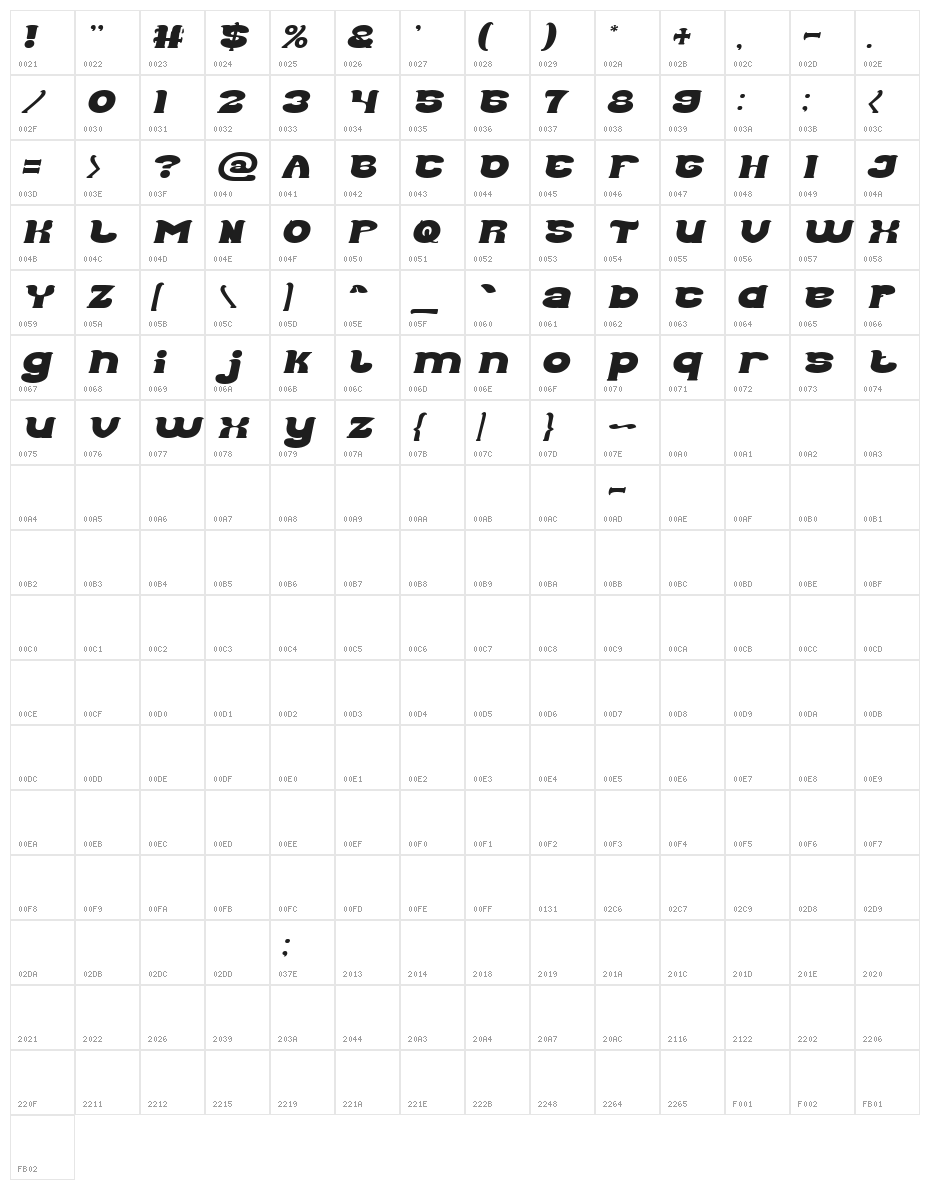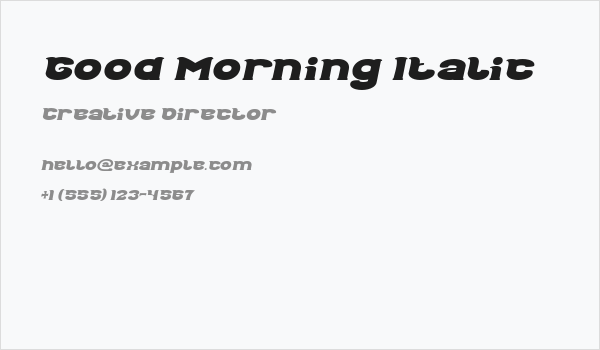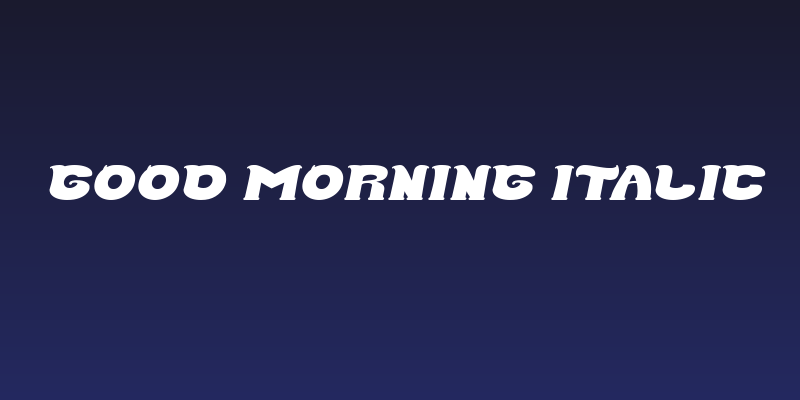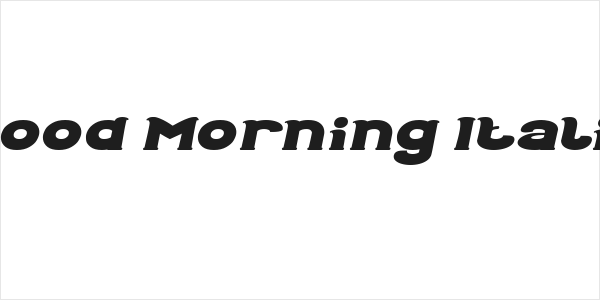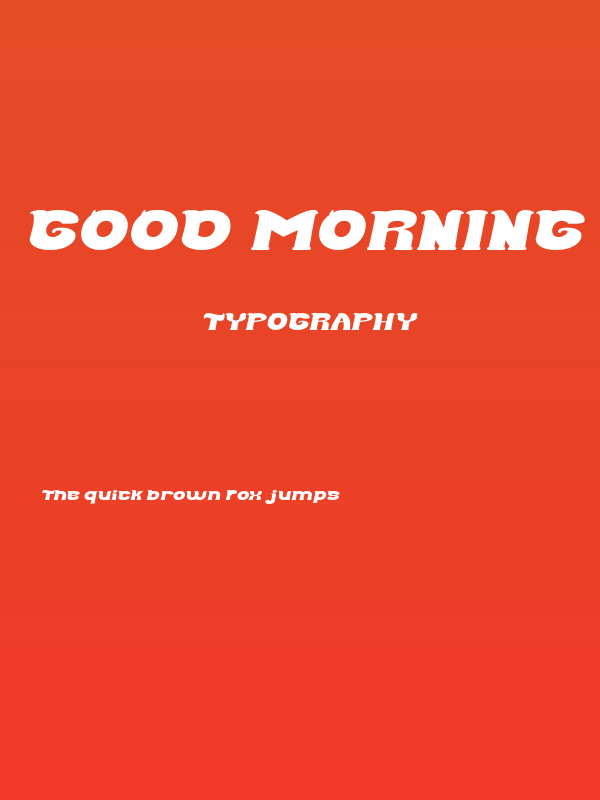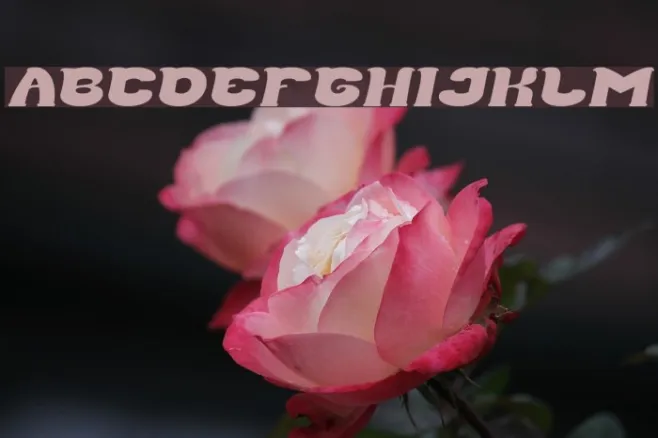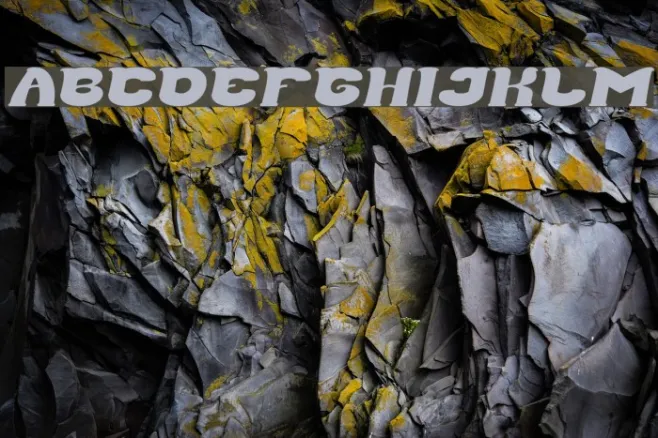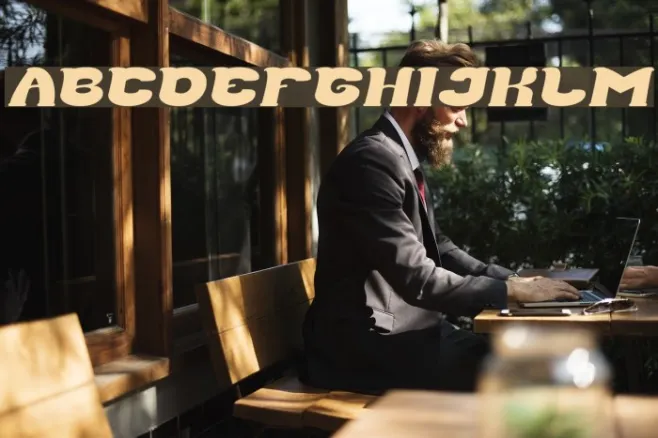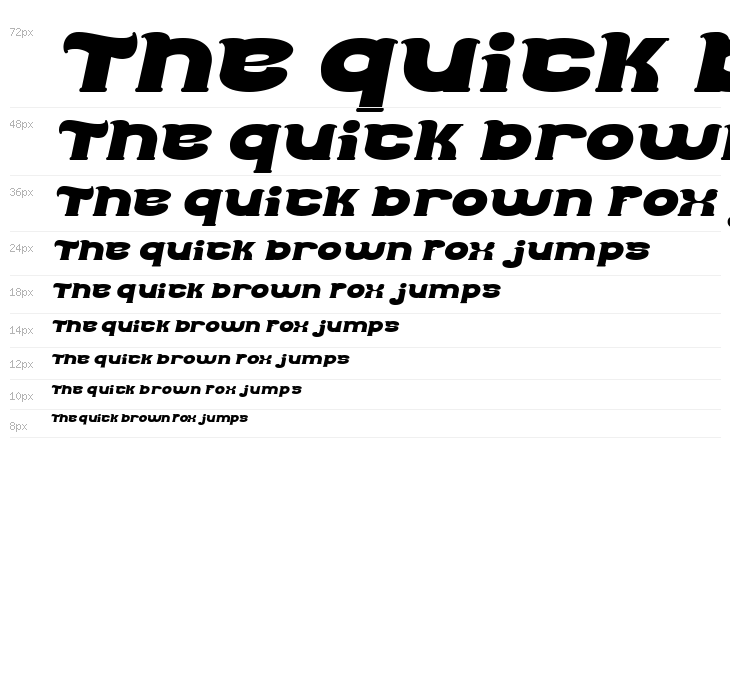
Good Morning Italic Font
Good Morning Italic Description
This font features a playful and bold style with a distinct italic slant, giving it a dynamic and energetic appearance. The characters are rounded and thick, providing a sense of friendliness and approachability. The uppercase and lowercase letters maintain a consistent style, with smooth curves and a slight forward tilt. The numbers and special characters follow the same design principles, ensuring uniformity across all glyphs. This font's boldness and unique style make it stand out, making it suitable for eye-catching designs.
| Overall Style | Playful, Energetic |
| Proposed Projects | Ideal for children's books, playful branding, posters, and creative advertising campaigns. |